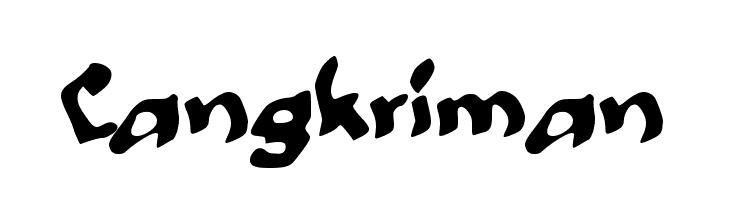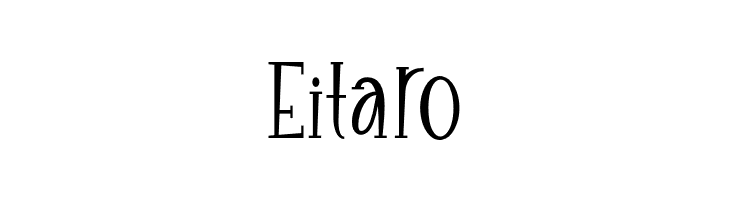
( Fonts by wep )
A bold, hand-drawn font with a playful and energetic style.
( Fonts by Jester Font Studio )
An ornate and decorative font with intricate lace-like patterns and diamond-shaped borders.
( ADavis )
A playful handwritten font with a casual, informal style.
( Linafis Studio - Ahmad Fashihullisan )
A bold, modern font with high contrast and a slightly condensed style.